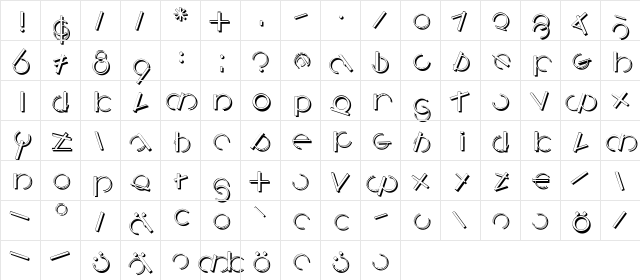
LogomatiqueShadow Regular
Design Context for LogomatiqueShadow Typeface
LogomatiqueShadow is built around its visual character rather than neutral utility — its distinctive forms are designed to make an impression at display sizes.
Font Pairing: Pair with a clean neutral sans-serif for body copy to let LogomatiqueShadow's character lead without overwhelming the composition.
Pro Tip: Use LogomatiqueShadow exclusively at display sizes — it was designed to be seen, not read at length. Let a neutral companion handle body copy.